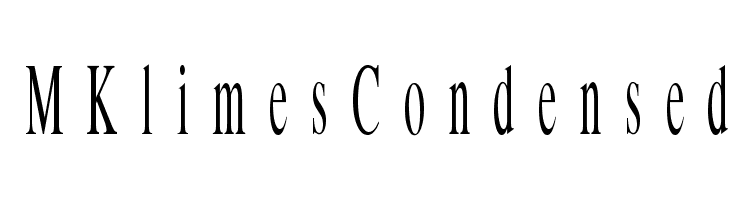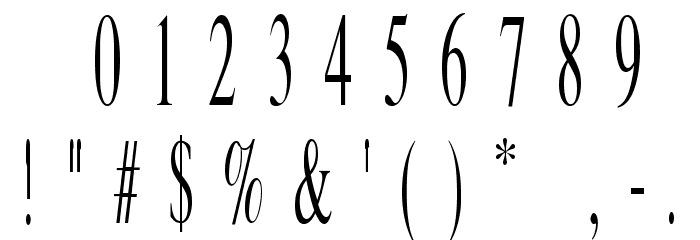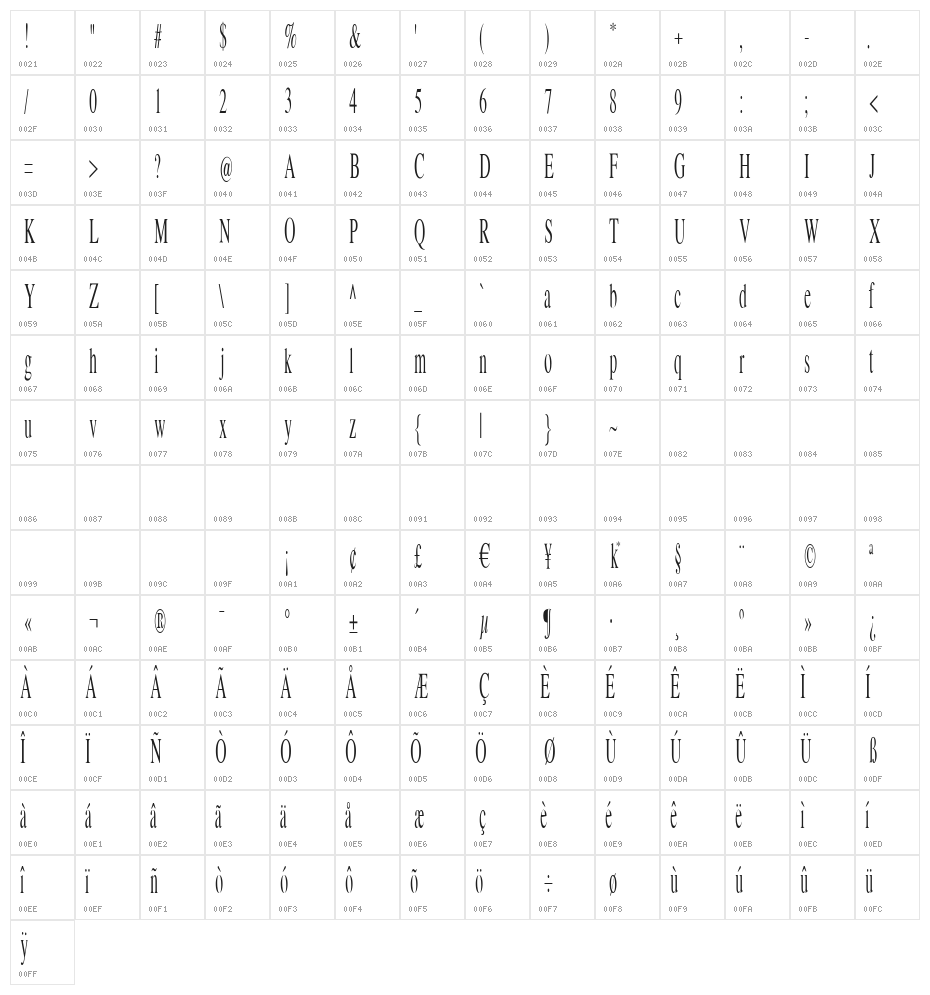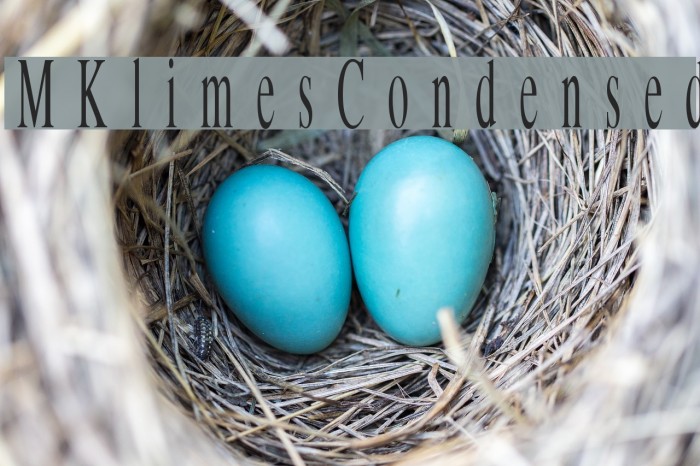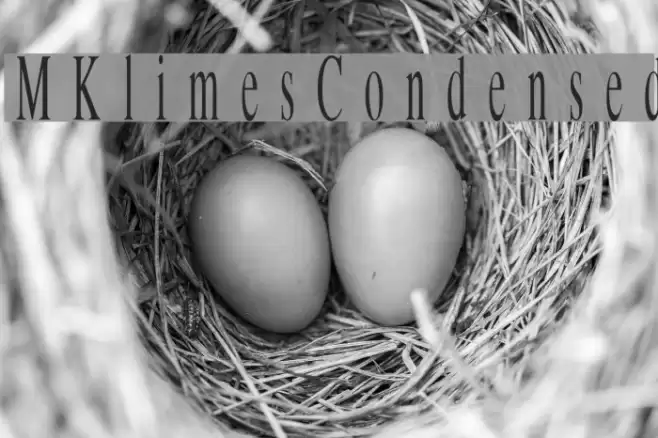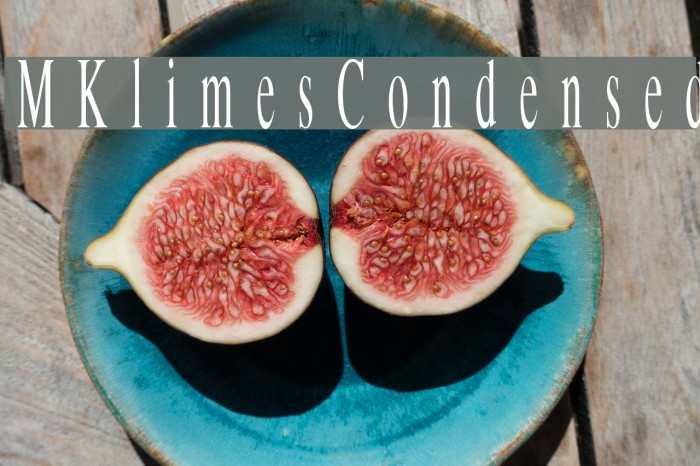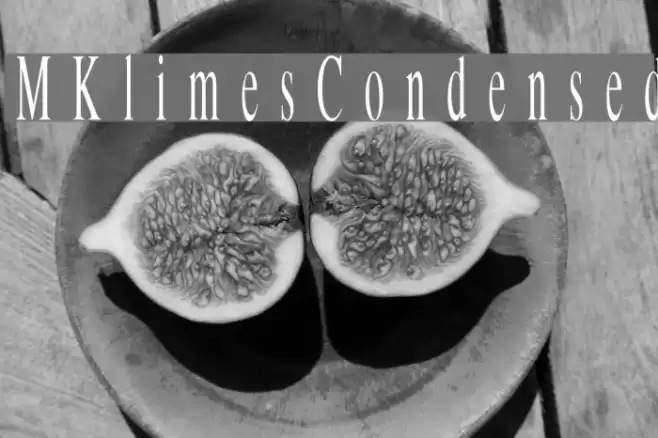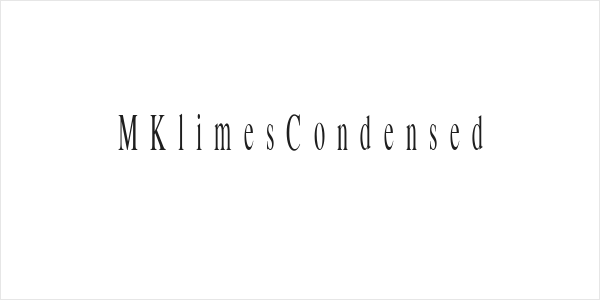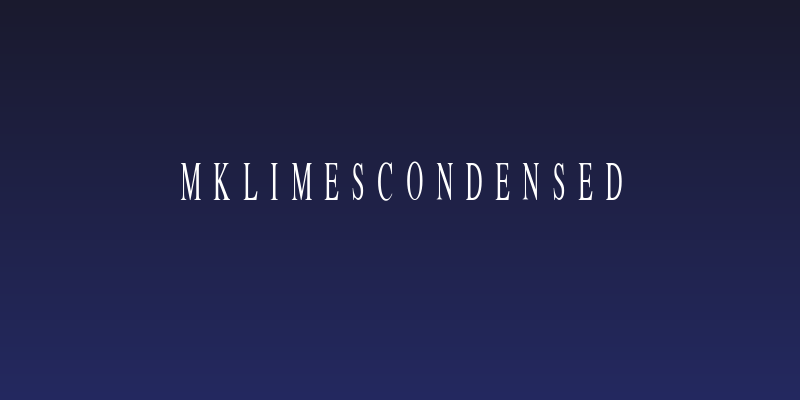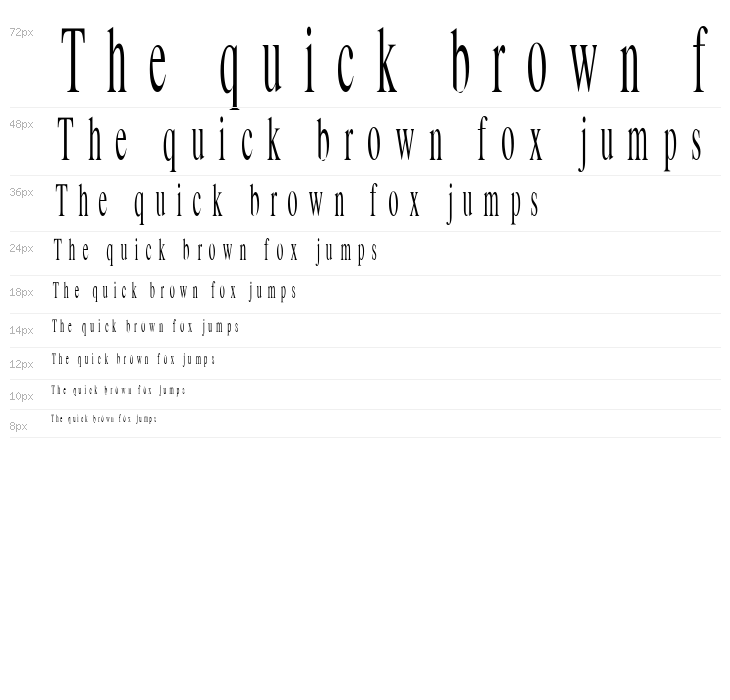
MKlimesCondensed Font
MKlimesCondensed Description
This font features a classic serif style with a condensed width, giving it an elegant and sophisticated appearance. The characters are tall and narrow, with sharp, clean lines and distinct serifs that add a touch of formality. The uppercase letters are particularly elongated, while the lowercase letters maintain a consistent height, creating a harmonious balance. The numerals are proportional and align well with the overall design, making them suitable for both text and numerical data. The special characters are well-integrated, maintaining the font's refined aesthetic. This font's condensed nature allows for efficient use of space, making it ideal for situations where space is limited but readability is crucial.
| Proposed Projects | Ideal for editorial design, book covers, formal invitations, and branding materials that require a touch of sophistication. |